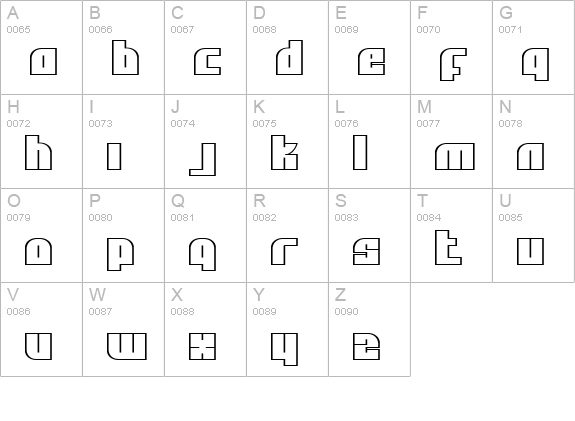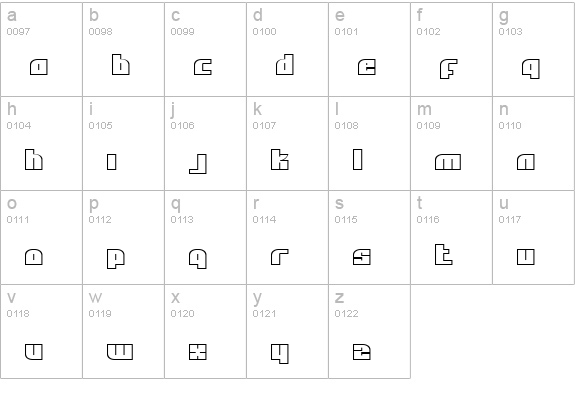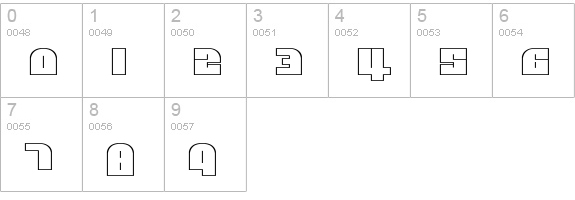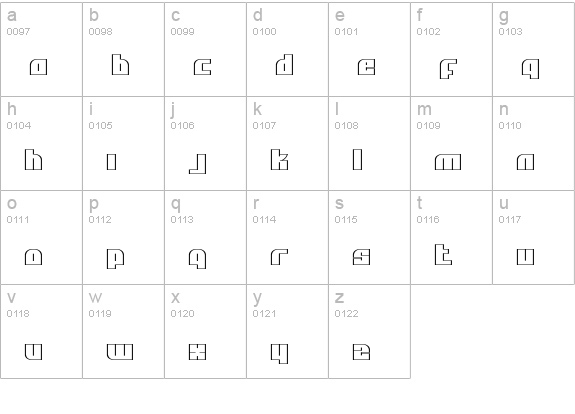
Alpha Flight Small Caps font is a sleek and modern typeface that exudes sophistication and style. With its clean lines and elegant design, this font is perfect for adding a touch of class to any project. The small caps style gives a unique and professional look, making it ideal for headings, logos, and branding materials. What makes Alpha Flight Small Caps font even more appealing is that it is available for free download at FontsMarket.com. This means you can easily access this high-quality font without any cost, making it a valuable addition to your font library. Whether you are a designer, marketer, or content creator, Alpha Flight Small Caps font is sure to elevate your projects and help you stand out from the crowd. Download it today and take your designs to the next level!